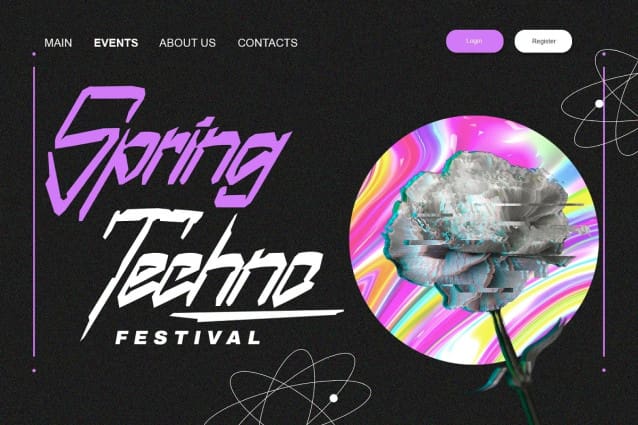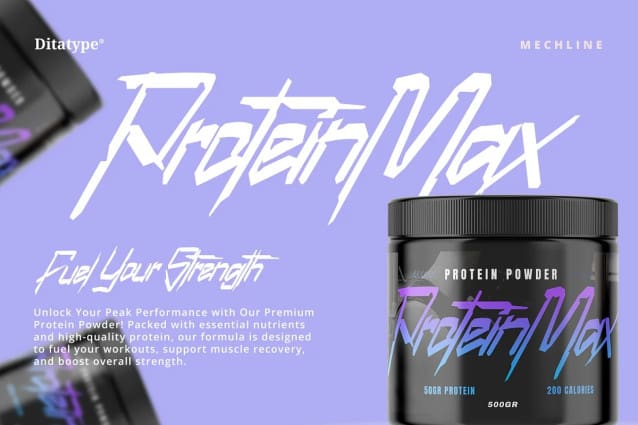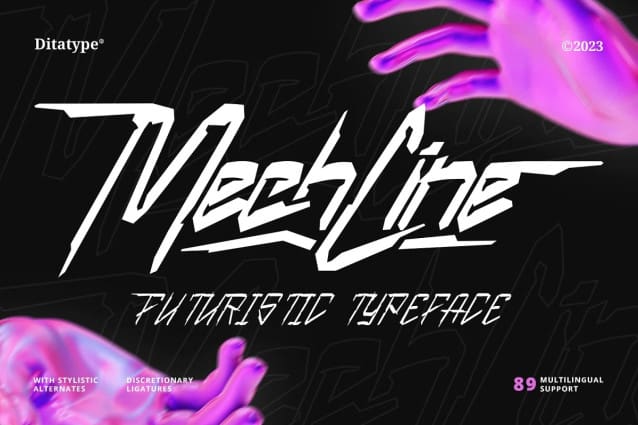
Mechline Display Font
Mechline Display Font a visionary font that seamlessly blends futuristic aesthetics with artistic ingenuity. Mechline creates a cutting-edge look that pushes the boundaries of modern design.
The characters in Mechline Display embody the essence of the future, with a weight that strikes the perfect balance between elegance and technological advancement. The artistic letter shapes evoke a sense of creativity, giving each character a distinct and avant-garde identity. Mechline’s irregular outlines add an element of unpredictability, contributing to its futuristic allure.